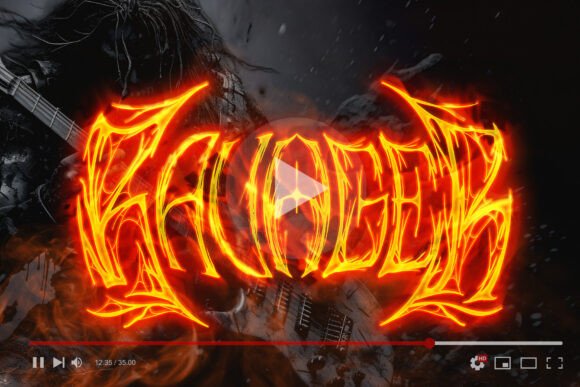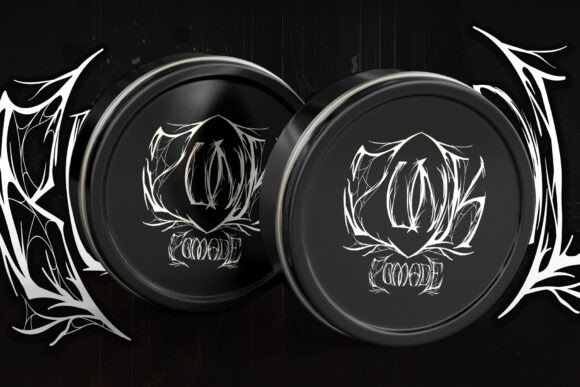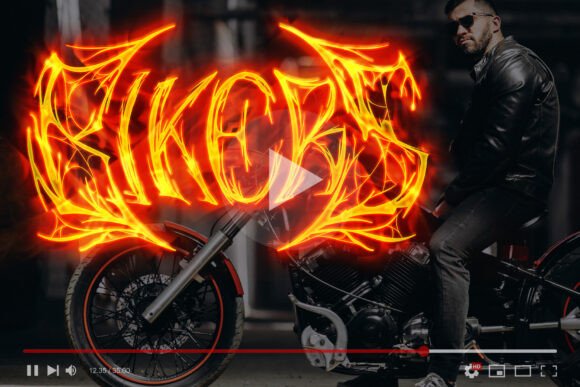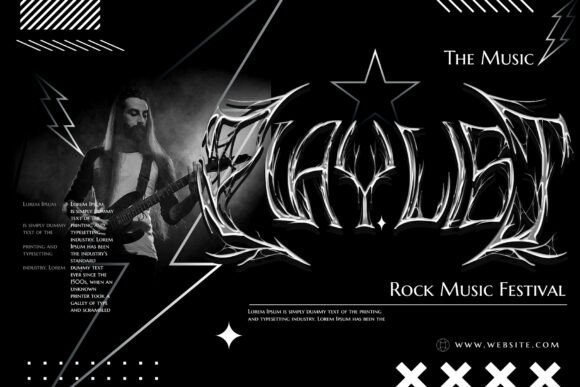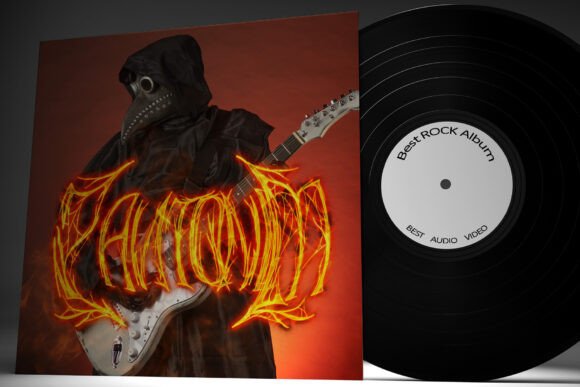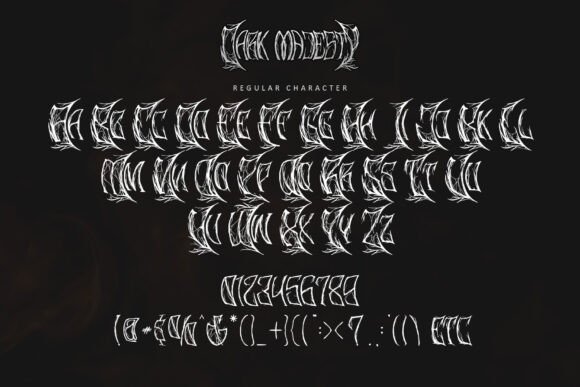
Introduction to Dark Majesty Font
Enter the foreboding domain of Dark Majesty, a death metal blackletter font forged in the fires of raw power and gothic elegance.
This font channels unrelenting intensity with its razor-sharp edges, dramatic strokes, and intricate detailing, exuding an aura of darkness and dominance Perfect for album covers, band merchandise, striking logos, movie titles, and posters, Dark Majesty demands attention and amplifies the primal energy of your designs.